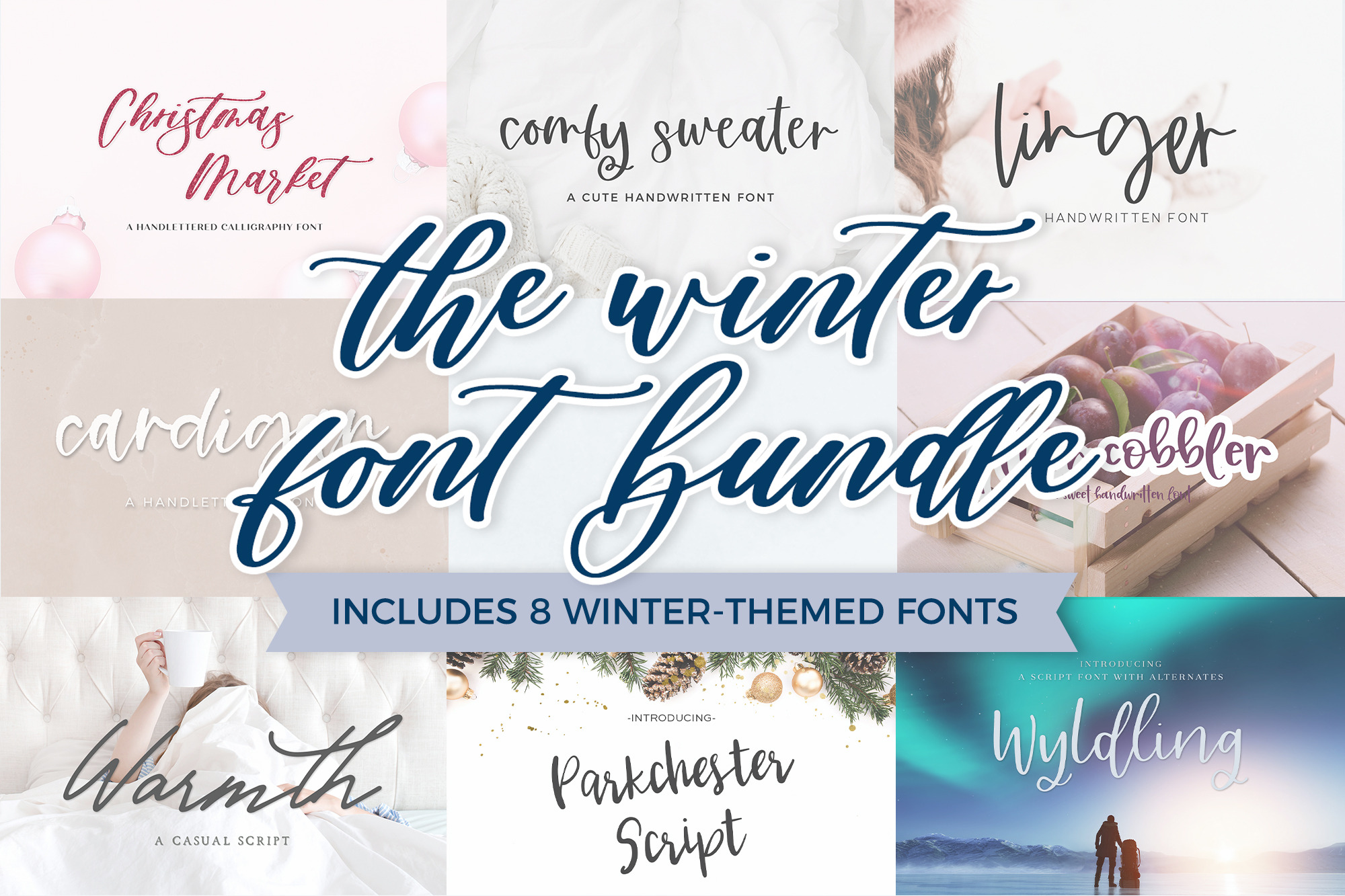
The Winter Font Bundle
Introducing the Winter Font Bundle!
Enjoy 8 fonts beautiful script fonts perfect for all types of winter-themed projects. All handlettered, these fonts will be perfect for holiday cards & designs, logos & branding, website elements, quote graphics, and crafting projects on your Cricut or Silhouette machine!
This bundle includes:
- Christmas Market Script
- Comfy Sweater Script
- Linger Script
- Plum Cobbler Script
- Cardigan Script
- Warmth Script
- Parkchester Script
- Wyldling Script
This bundle is curated for designers and crafters that enjoy making modern & fun projects with a playful, uplifting feel. These fonts are all handlettered to perfection, and easy to install! Font file types provided are .otf, .ttf, and webfont (.eot, .woff, and .woff2) files. All fonts include full character sets, numbers, punctuation, PUA encoding, and Western European Language Support.